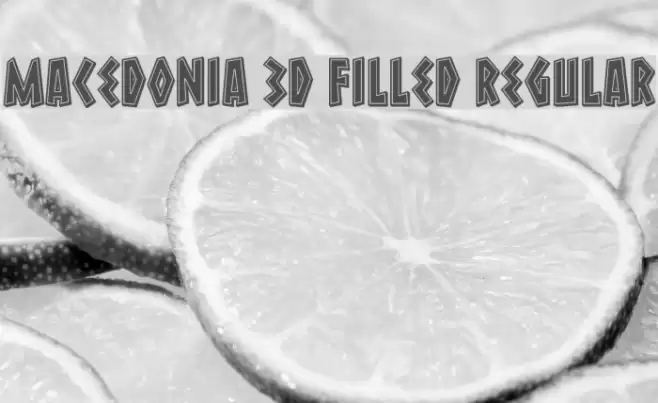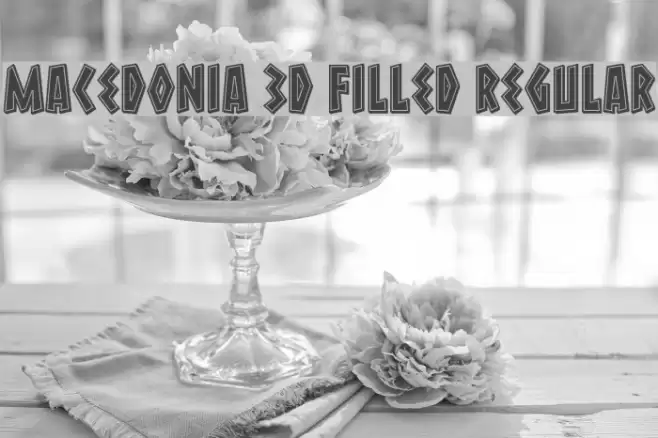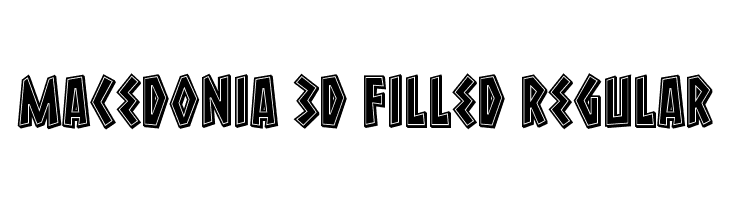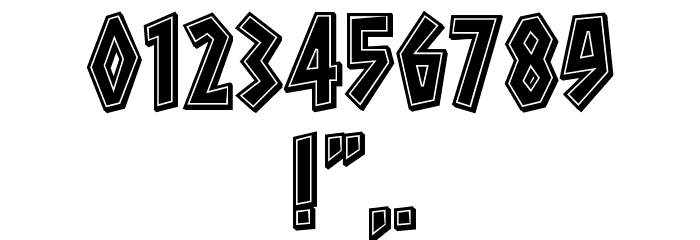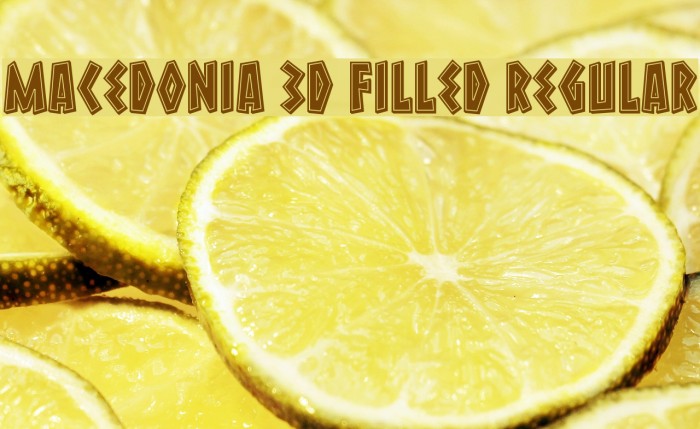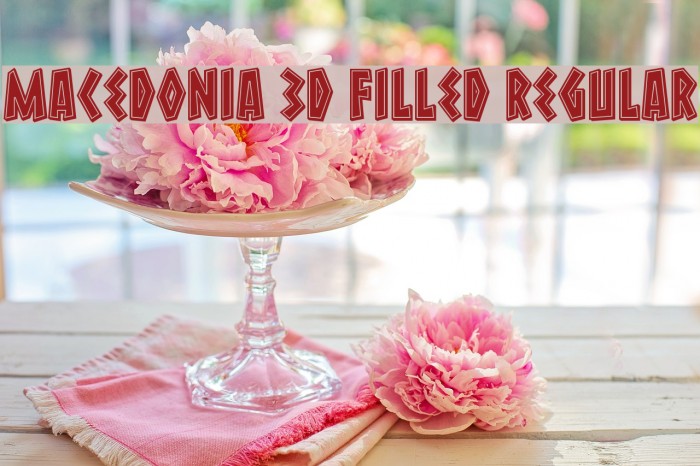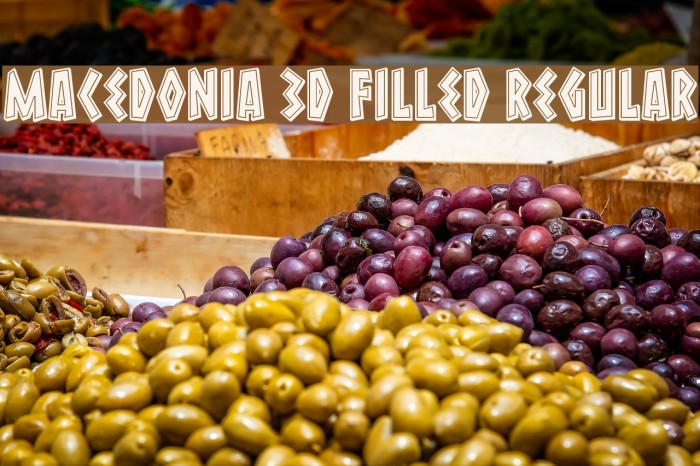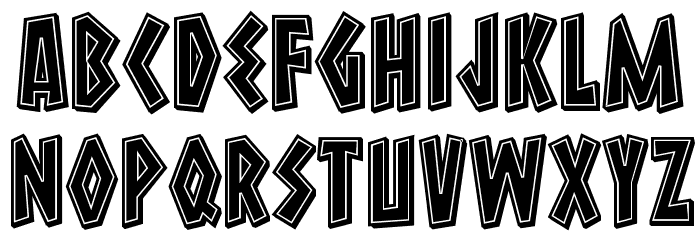
Macedonia 3D Filled Regular Font
Macedonia 3D Filled Regular Description
This font features a bold, three-dimensional appearance with a filled interior and a prominent outline, creating a striking visual impact. The characters are angular and geometric, with sharp edges and a dynamic, energetic style. The uppercase letters are consistent in height, while the numbers and special characters maintain the same bold and impactful design. The font's 3D effect is achieved through the use of shadowing and layering, giving it a sense of depth and movement. This makes it particularly suitable for attention-grabbing designs.
A bold, 3D font with a filled interior and striking outline, perfect for dynamic designs from Uncategorized fonts.
- Proposed Projects: Ideal for posters, headlines, logos, and any design requiring a bold, eye-catching typeface.